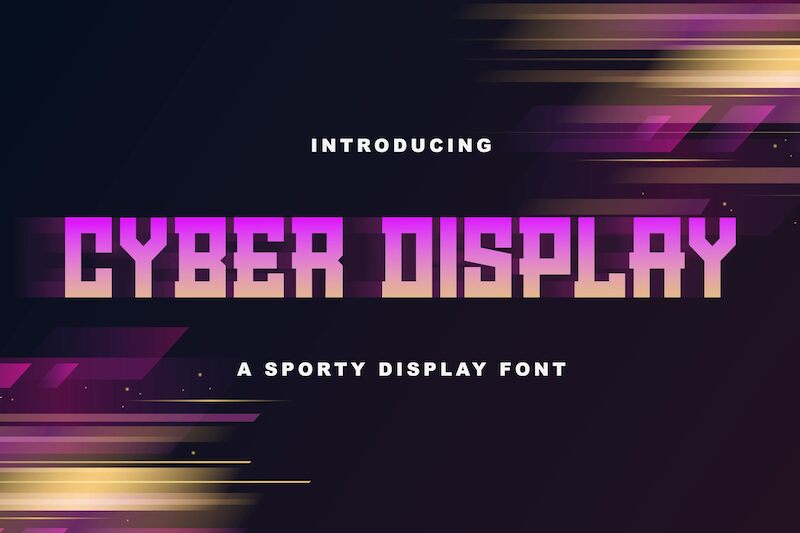
Cyber Display
Cyber Display font by StringLabs Creative Studio is a futuristic display font ideal for tech-related projects. Its bold presence and high readability make it an impactful choice for headlines, logos, and posters geared towards technology-focused audiences. With its geometric design and condensed width, Cyber Display offers a unique aesthetic sure to grab attention.
Use it as a free techno display font for game designs, app interfaces, book covers, film posters, webpage titles, social media posts or covers, invitation cards etc.